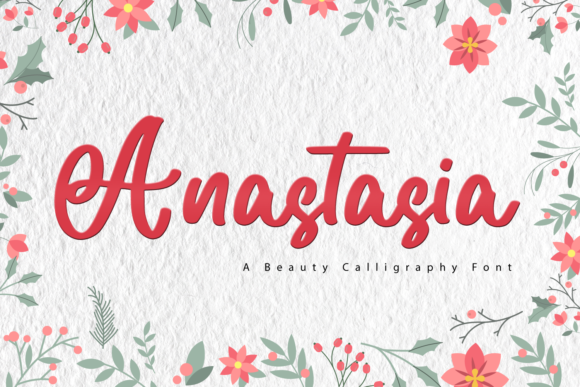
Unleash Your Creativity with the Timeless Anastasia Font
Do you ever find yourself scribbling down ideas in a notebook, lost in the creative process, and suddenly a spark of inspiration hits? For designers, that moment is what makes all the hard work worth it. The rush of excitement as a concept comes together, the satisfaction of bringing a vision to life – it’s what drives us to keep pushing the boundaries of our craft.
When it comes to bringing your designs to life, the right font can make all the difference. That’s where the Anastasia Font comes in – a beautiful, classy handwritten font that adds an elegant touch to any project. Whether you’re working on a wedding invitation, a branding campaign, or a personal art piece, this font is sure to make your designs stand out.
With its distinct and timeless style, the Anastasia Font is a valuable addition to any designer’s toolkit. Its versatility and sophistication make it perfect for a wide range of projects, from formal events to personal expressions of art. Whether you’re a seasoned pro or just starting out, this font is sure to become a trusted companion in your creative journey.
- Unique Characteristics: Anastasia features a unique blend of traditional and modern design elements, with intricate details and ornate flourishes, making it suitable for various design projects, from luxury branding to editorial content.
Anastasia Font Review
I recently had the chance to work with the Anastasia Font, and I must say it’s an interesting mix of styles. Here’s my honest take:
- The Anastasia Font is highly customizable, which is great for designers who like to experiment with different looks.
- It’s a great choice for those who want a more elegant and sophisticated font for their designs.
- The font is quite versatile and can be used for a wide range of projects, from corporate to creative.
- The Anastasia Font can be a bit overwhelming at times, especially with its bold and ornate features.
- It may not be the best choice for projects that require a more minimalist or modern look.
- Some characters, such as the ‘i’ and ‘l’, can be tricky to read, especially at smaller font sizes.
Overall, the Anastasia Font is a solid choice for designers who want a high-end, sophisticated look. While it may have some limitations, it’s a great option for those who are willing to experiment and push the boundaries of their design.
Tips for Getting the Most Out of Anastasia Font
Here are some tips to help you get the most out of Anastasia Font:
- Use Anastasia Font for titles, headings, and other prominent text elements to add a touch of elegance and sophistication.
- Combine Anastasia Font with other fonts to create a unique and visually appealing typography style.
- Experiment with different font sizes, colors, and styles to find the perfect combination for your design.
Anastasia Font is perfect for:
- Luxury branding and marketing materials
- High